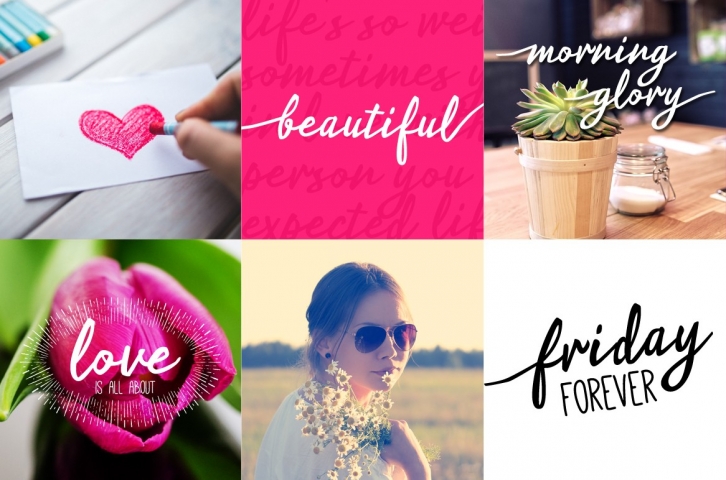
Ladylove is a trendy and unique font with an authentic style. It was designed by Famco Typefoundry and it's a great choice for creative people who need such a font. It was released on October 24, 2017 and the file size is 2.23 MB. Ladylove will add an organic vibe to any design idea!